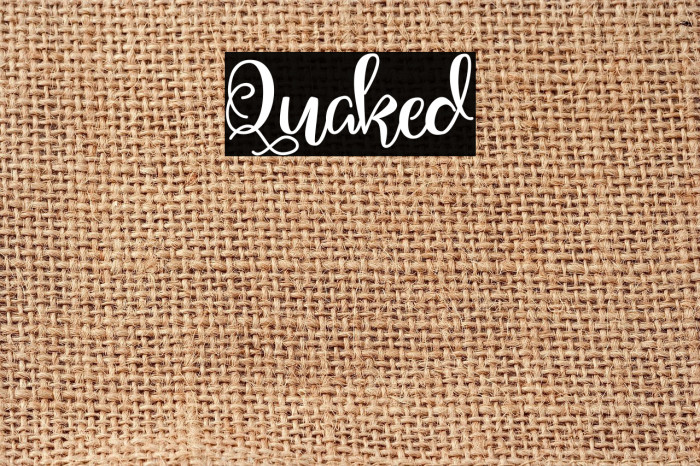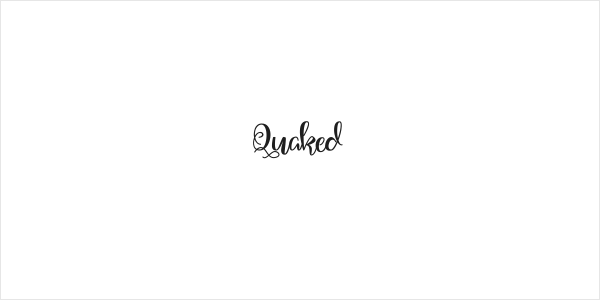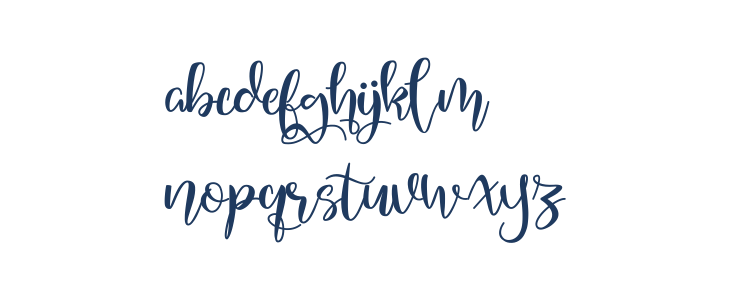
Quaked Font
Quaked Description
This font features an elegant, flowing script style with a modern twist. The characters are intricately designed with smooth curves and flourishes, giving it a sophisticated and artistic appearance. The uppercase letters are bold and decorative, while the lowercase letters maintain a cohesive flow with a slightly more understated design. The numerals are consistent with the overall style, offering a unique yet readable appearance. Special characters are included, each crafted with the same attention to detail, making this font versatile for various design needs.
| Proposed Projects | Ideal for wedding invitations, branding, greeting cards, and elegant packaging designs. |